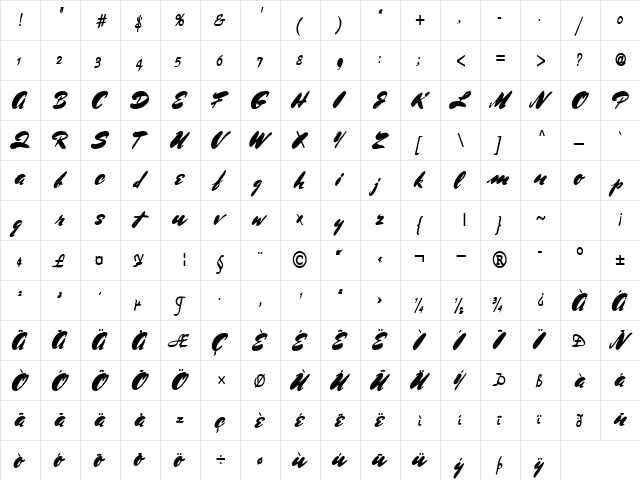
DanceOfTheBrush11 Regular Font Preview
DanceOfTheBrush11 Regular
DanceOfTheBrush11 Regular Font Details
Design Context for DanceOfTheBrush11 Typeface
DanceOfTheBrush11 brings a calligraphic fluidity to the page — its connecting strokes and expressive curves give it an unmistakably human quality.